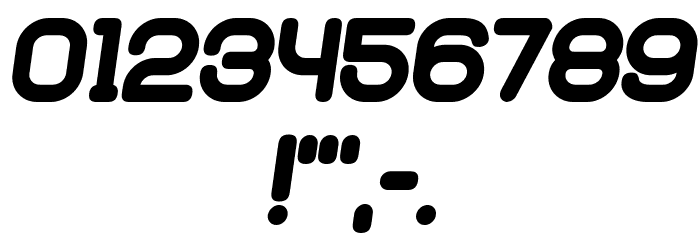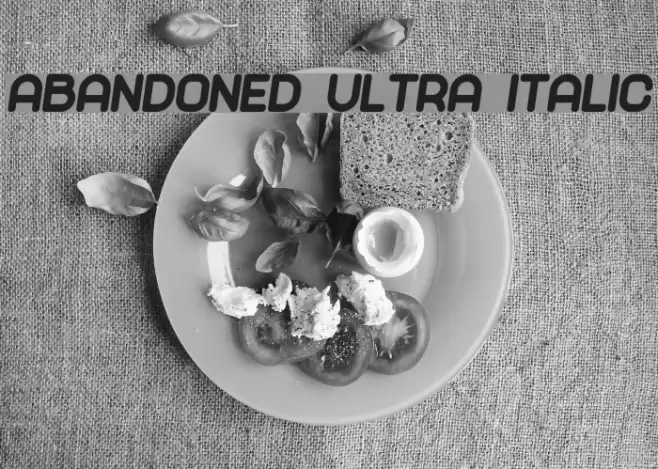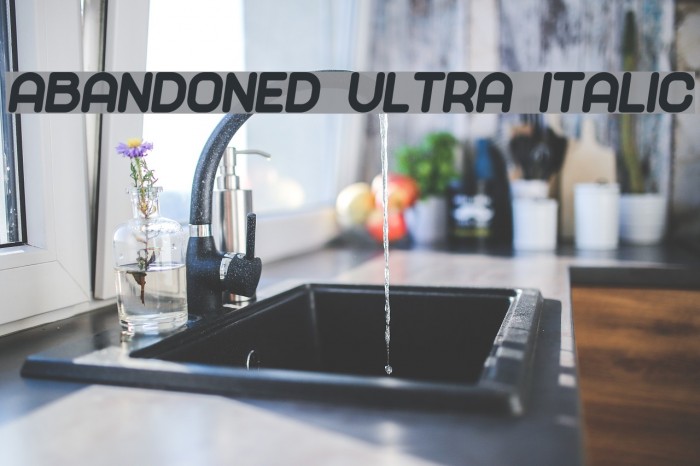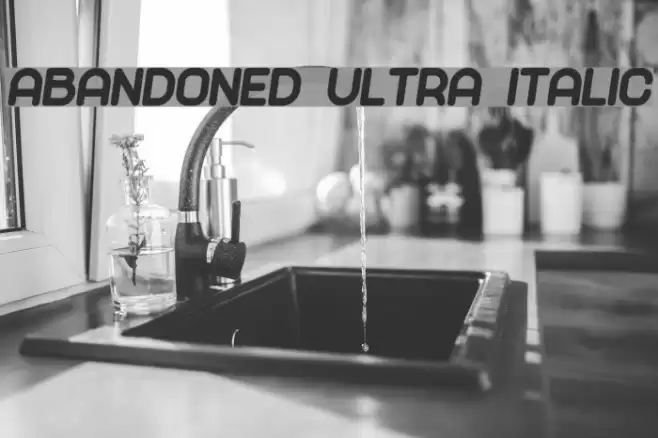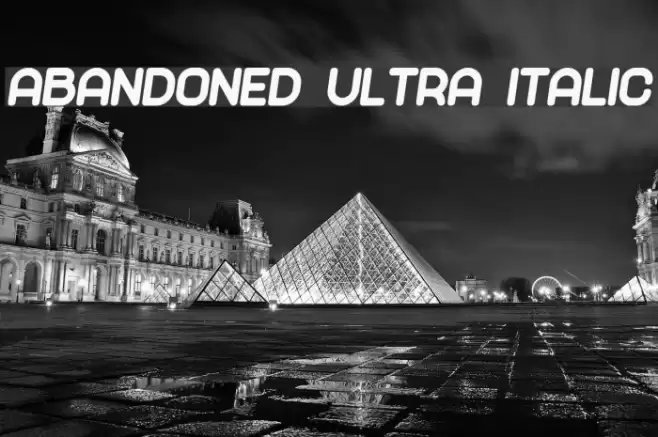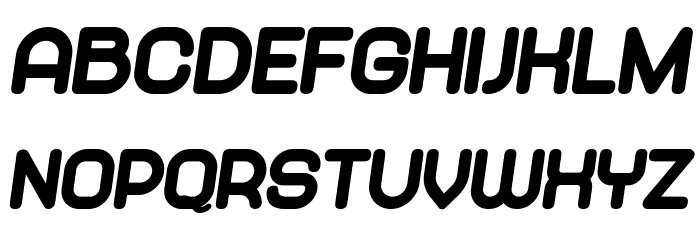
Abandoned Ultra Italic Font
✎ Futuristic
Abandoned Ultra Italic Description
This font features a bold, ultra-italic style with rounded edges and a modern, futuristic appearance. The characters are uniformly thick, providing a strong visual impact. The letters are slightly condensed, enhancing the compact and sleek look. The numbers and special characters maintain the same boldness and curvature, ensuring consistency across all elements. This font's design is both eye-catching and legible, making it suitable for various creative applications.
| Proposed Projects | Ideal for branding, advertising, posters, and digital media where a strong, modern presence is desired. |